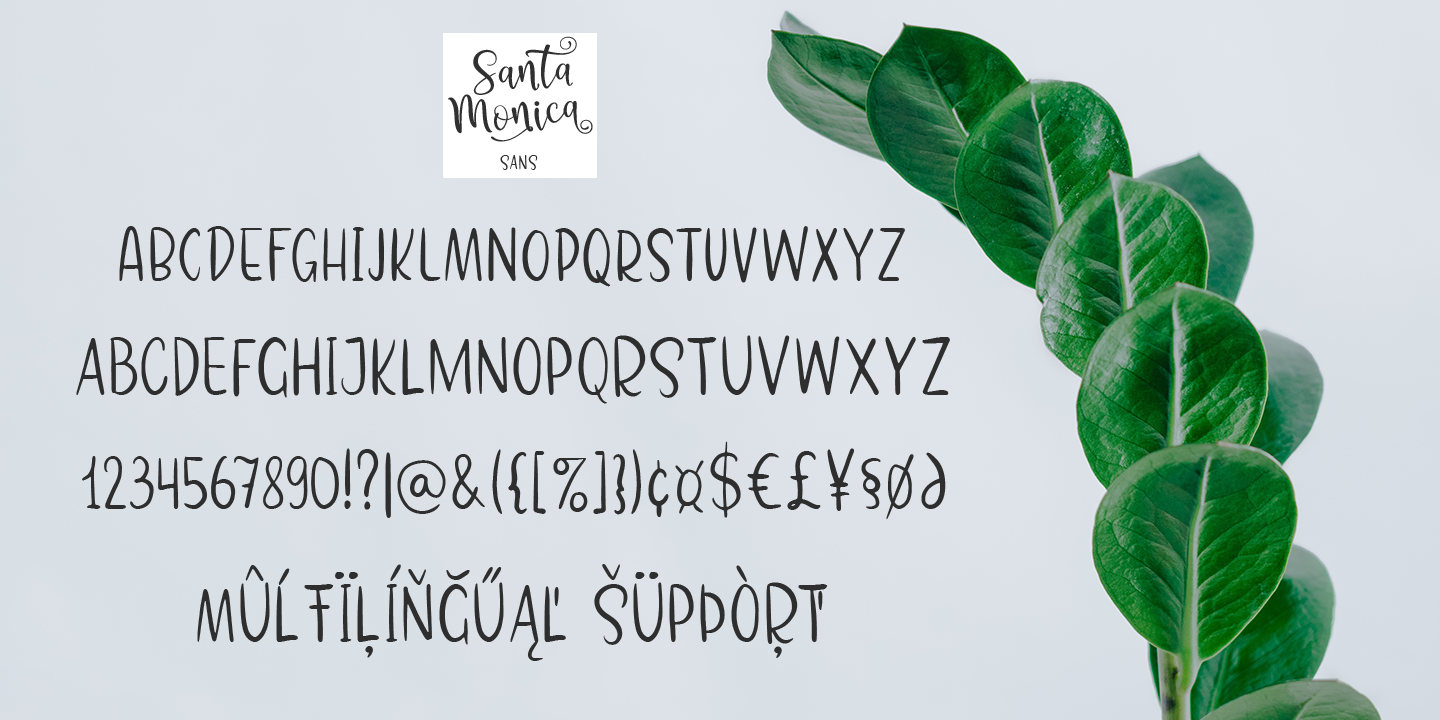
Santa Monica Font is a chic and contemporary typeface, perfectly capturing the laid-back yet stylish vibe of its namesake city. It’s ideal for designs that aim for a fresh, approachable, and subtly sophisticated aesthetic. Imagine it gracing the branding for a trendy beachside cafe, adding a modern flair to fashion blog headlines, or creating inviting signage for a boutique hotel. Its clean lines and friendly curves also make it an excellent choice for crafting engaging social media content, designing relaxed yet refined wedding invitations, and developing charming packaging for artisanal goods. Whether you're aiming for a casual elegance, a modern minimalist look, or a genuinely inviting feel, Santa Monica Font delivers a delightful and current visual presence.
What makes Santa Monica Font truly exciting is its effortless blend of casual readability with an inherent sense of style. It feels both contemporary and timeless, possessing a breezy charm that makes your message feel accessible and appealing without being overly formal. The balanced proportions and open character forms contribute to its excellent legibility, ensuring it works beautifully across various applications, from large display text to more subtle details. Santa Monica Font stands out by offering a unique combination of modern design and a warm, inviting personality, making it a highly versatile choice for projects that seek to evoke a sense of cool sophistication and relaxed appeal.
The Santa Monica Font family typically offers a thoughtful range of weights and possibly stylistic variations to enhance its versatility. You might find a standard Regular weight, often complemented by a Light or Thin version for more delicate applications, and a Bold or Semibold for emphasis in headlines or important text. Some versions may also include a subtle italic or an alternative style that adds a bit more personality while maintaining the core aesthetic. These variations ensure that Santa Monica Font can be effectively used across various design elements, maintaining consistency and visual appeal. For those seeking Santa Monica Font Free Download, exploring these different weights can unlock its full potential for your creative and professional projects.